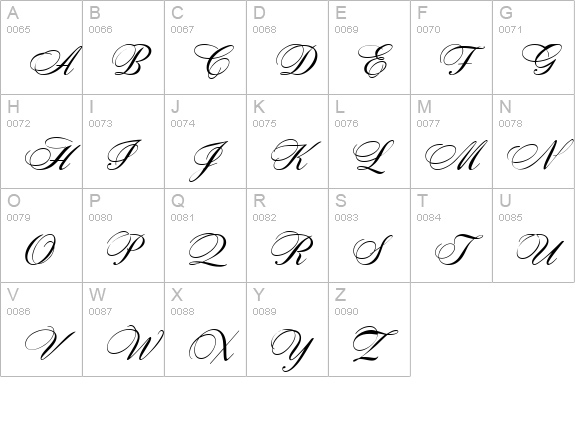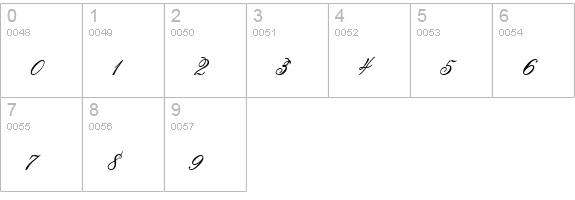
Rosamunda Two Font Details
Rosamunda Two font is a stunning typeface that exudes elegance and sophistication. With its intricate details and graceful curves, this font is perfect for adding a touch of luxury to your designs. Its timeless beauty and versatility make it suitable for a wide range of projects, from wedding invitations to branding materials. What makes Rosamunda Two font even more appealing is that it is available for free download at FontsMarket.com. This means that you can easily access this exquisite font and elevate your design projects without any cost. Don't miss the opportunity to enhance your creations with the beauty of Rosamunda Two font - download it today and let your creativity shine!